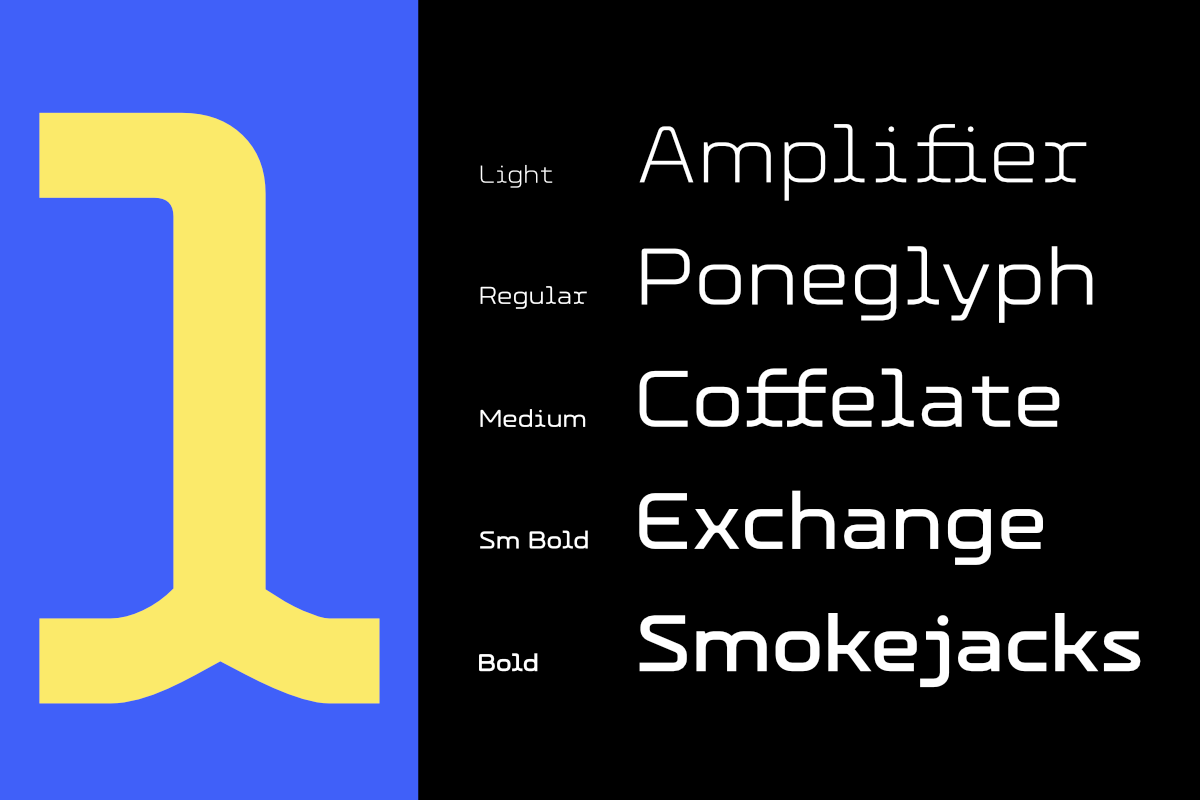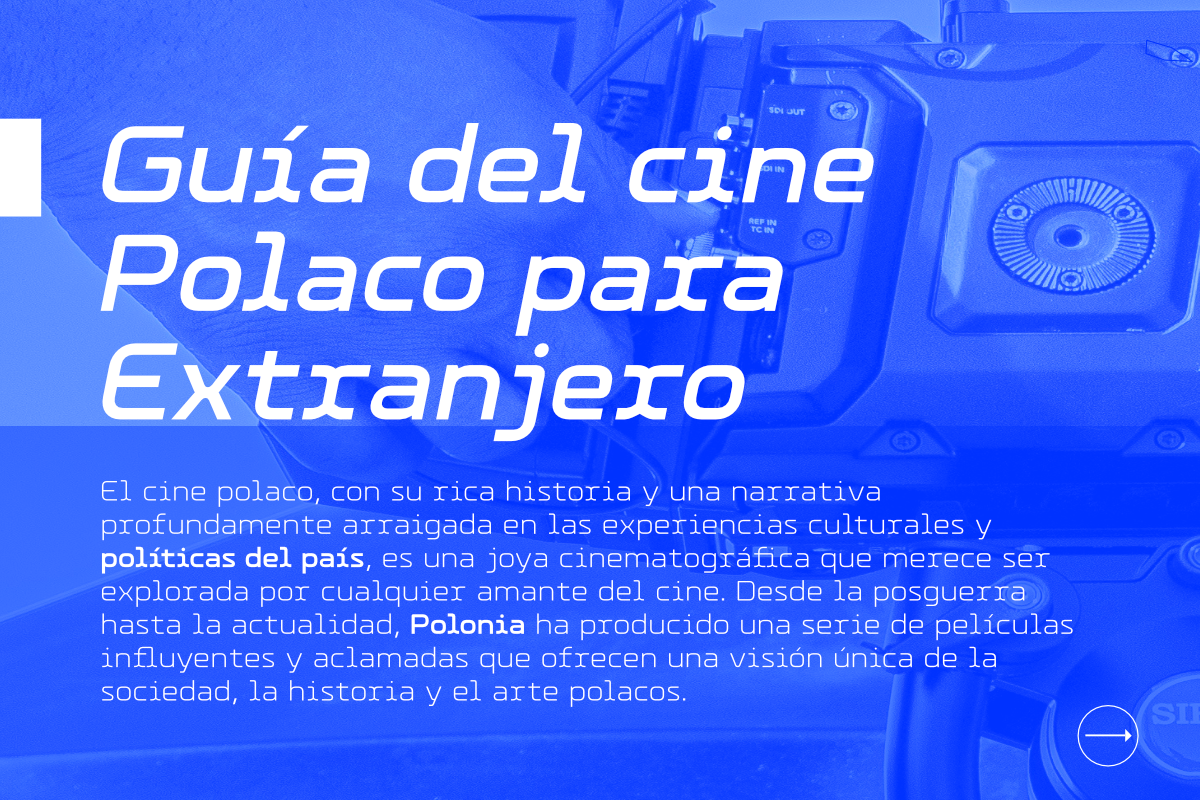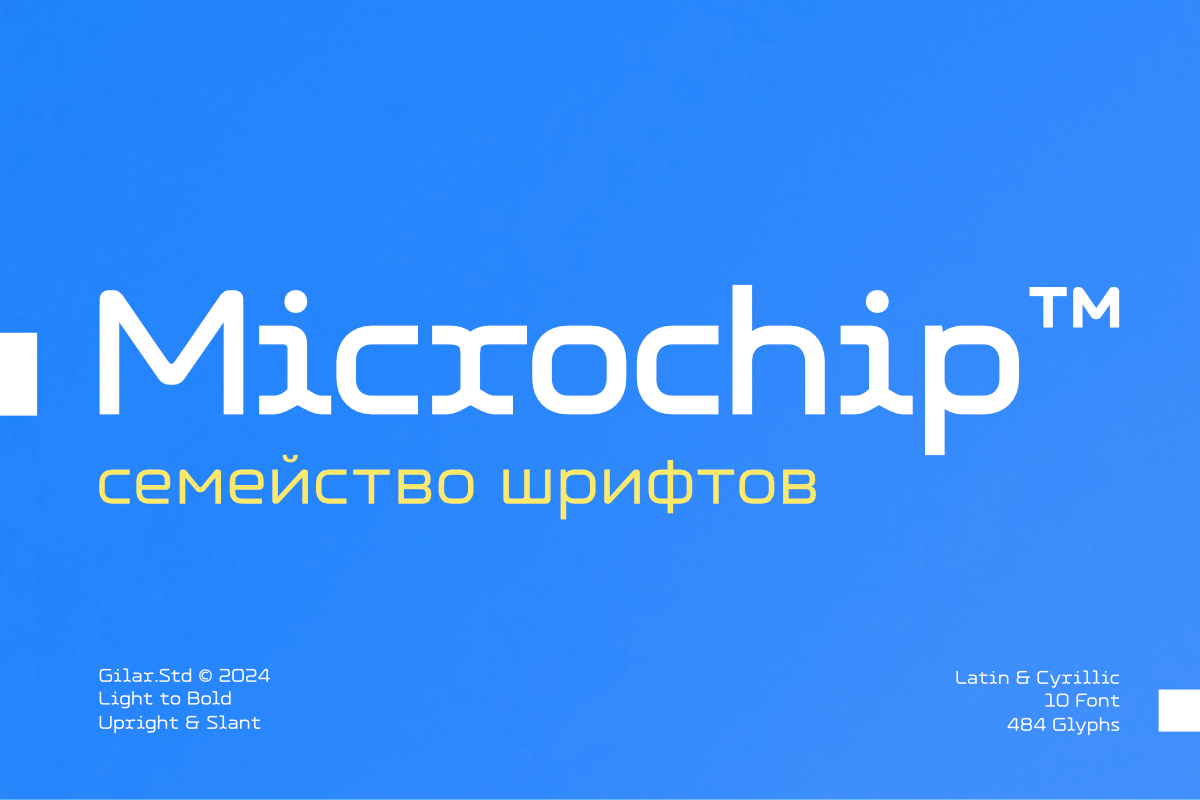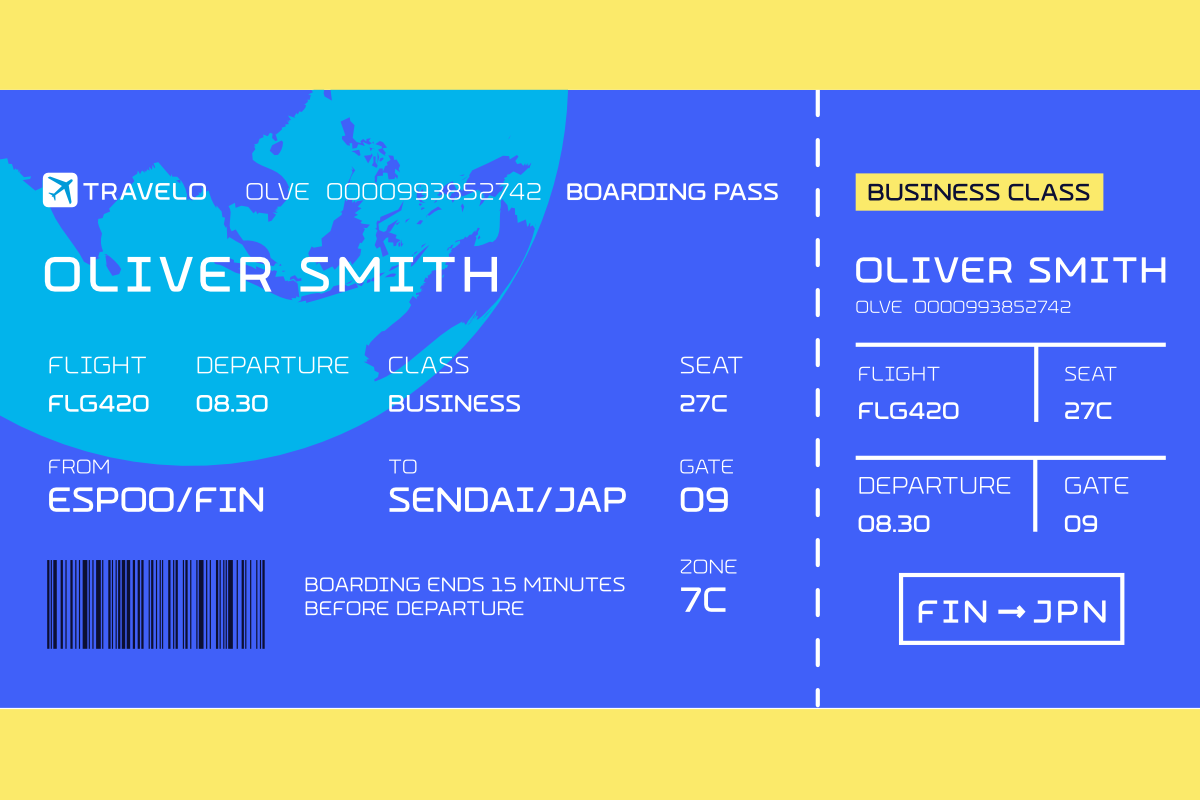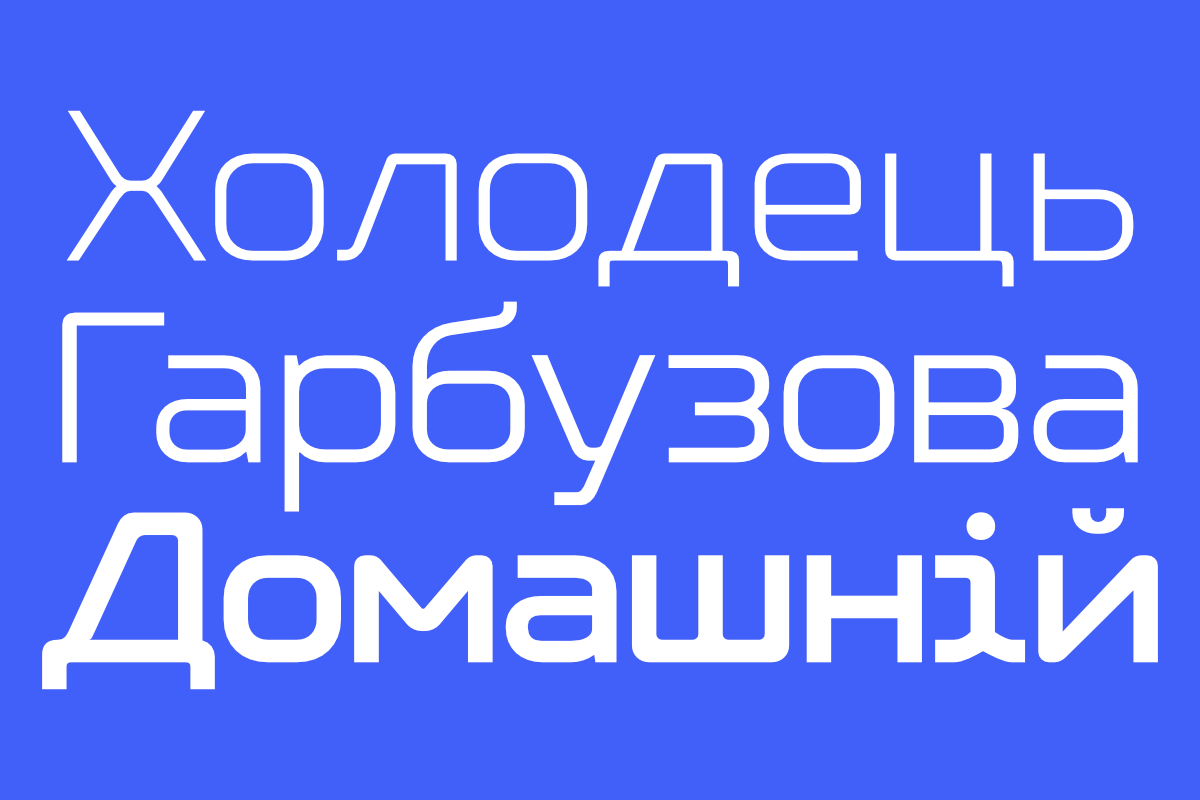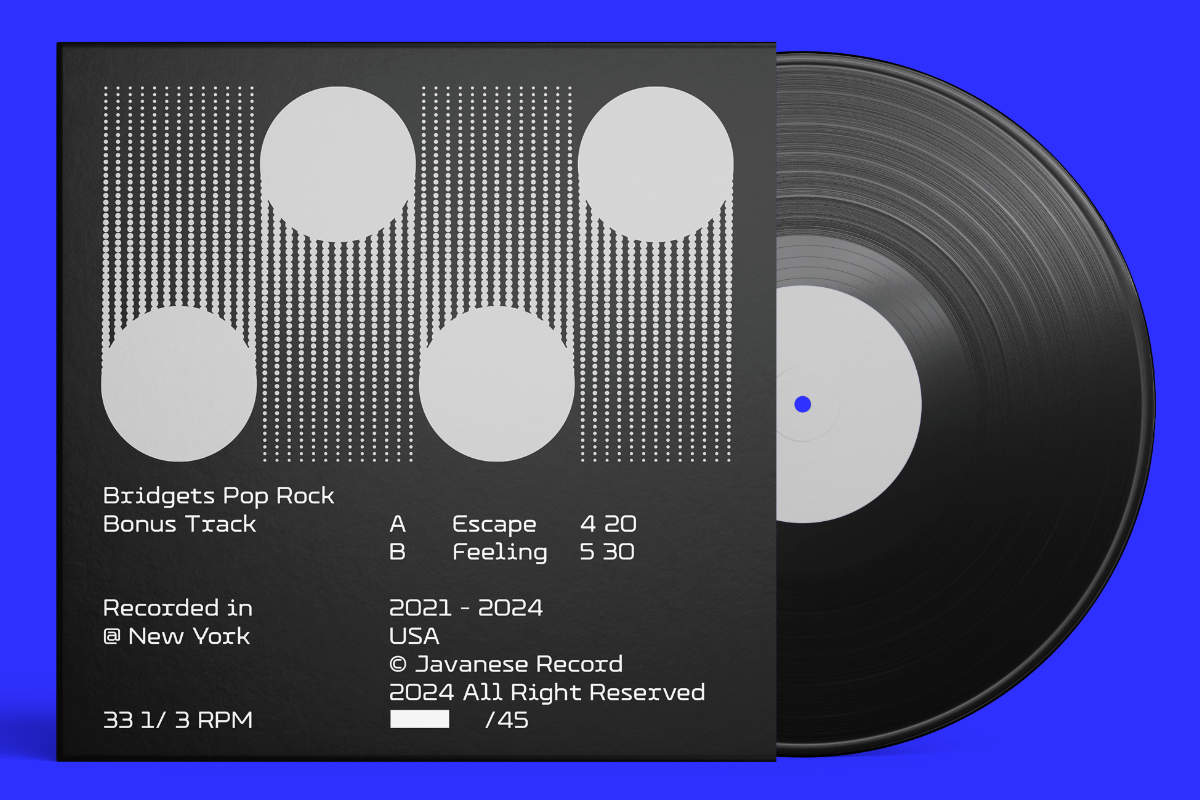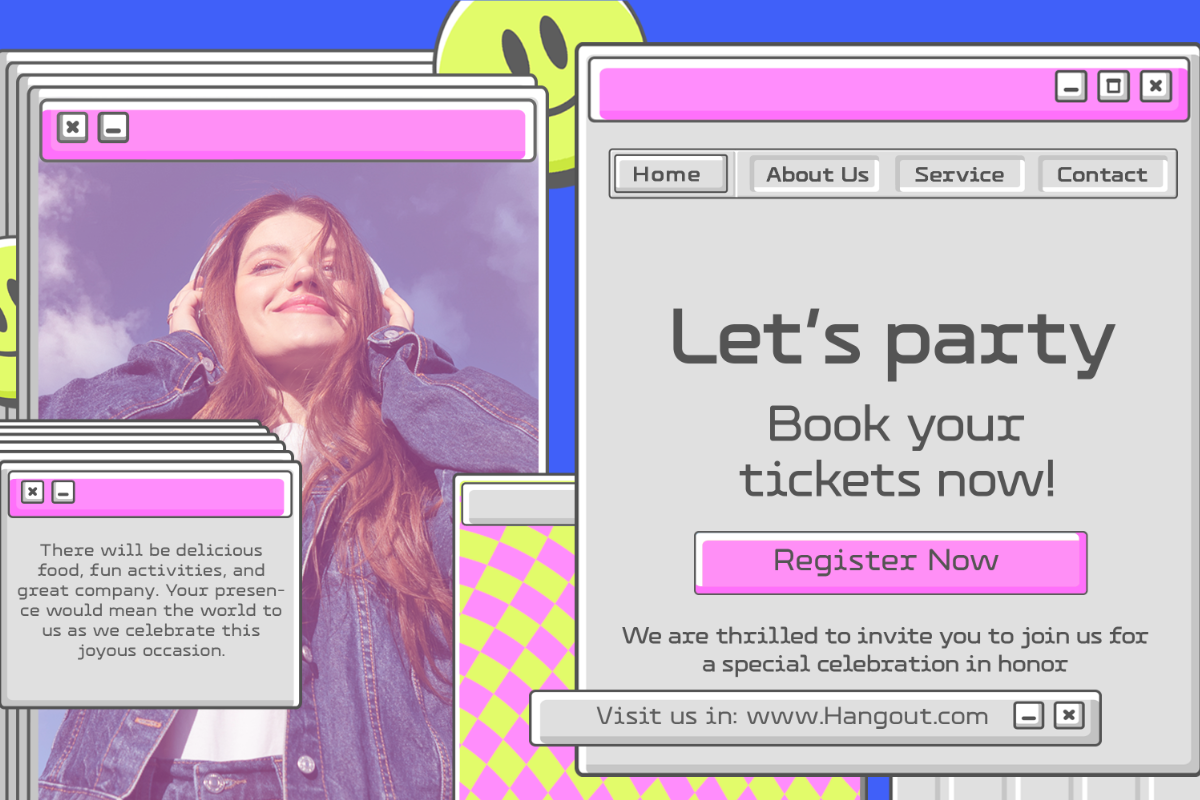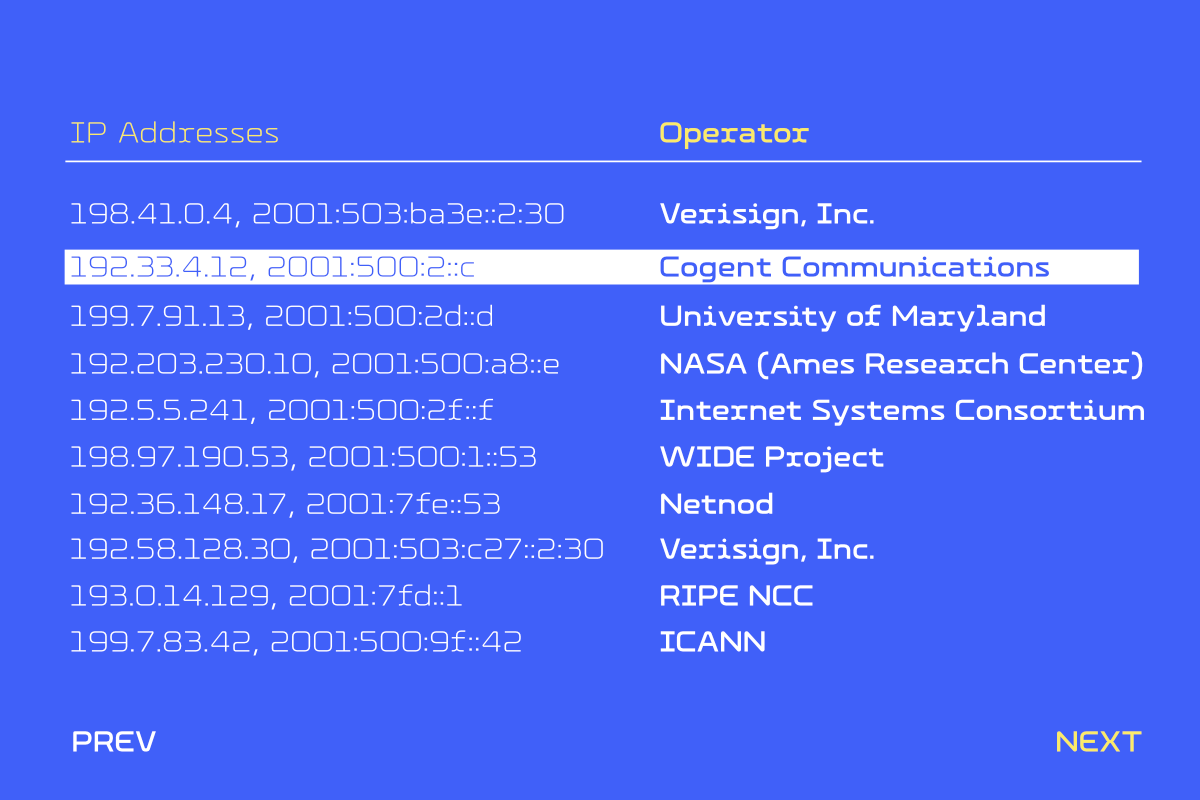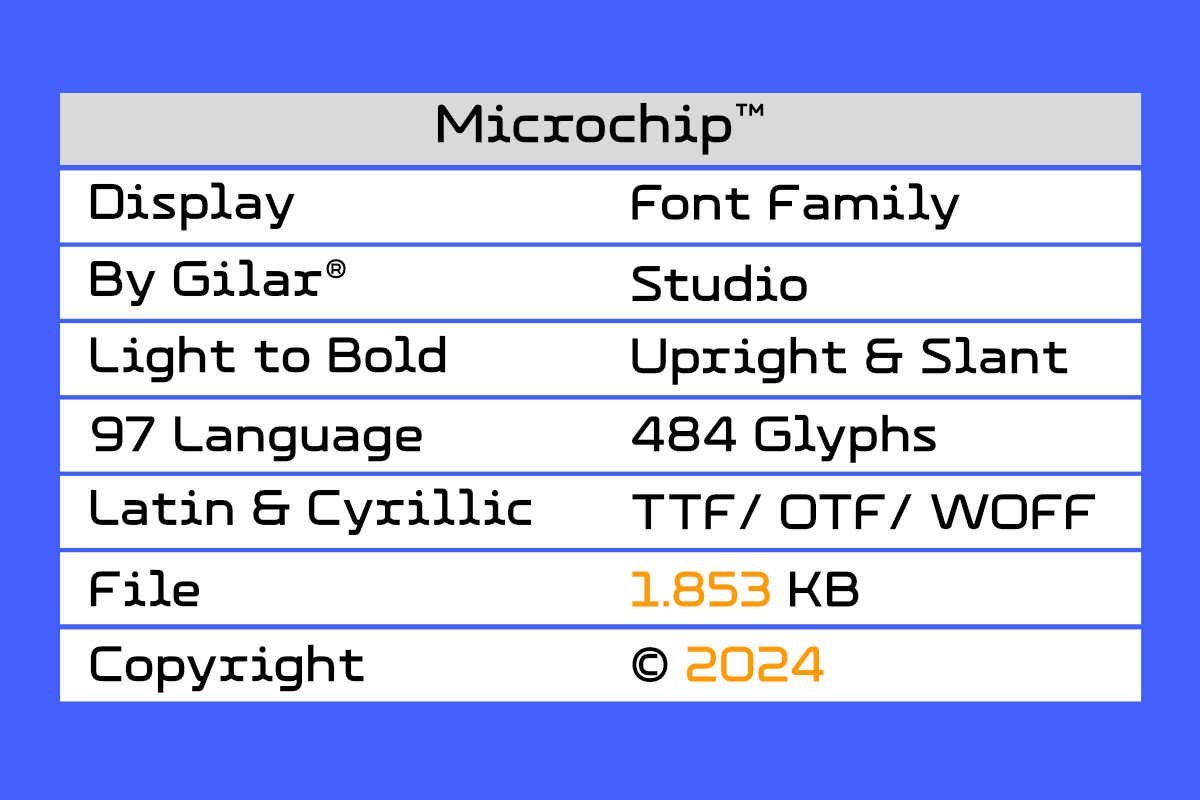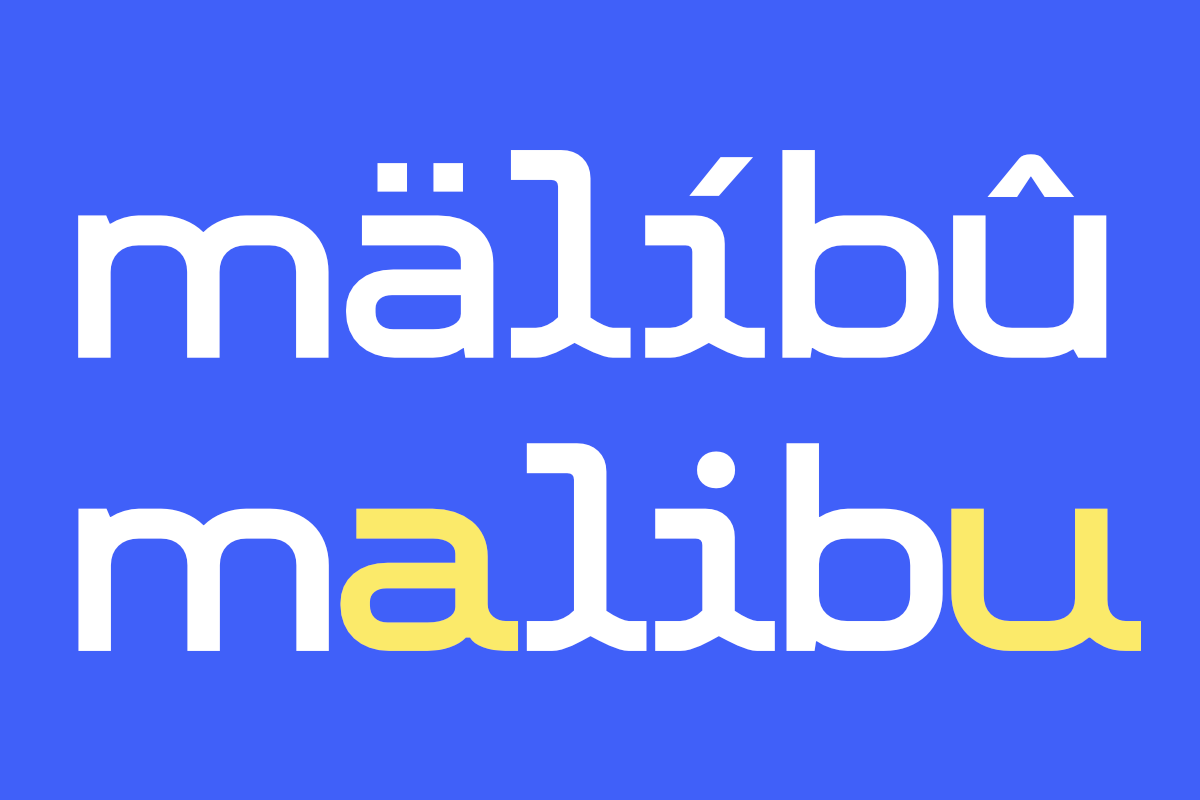
Microchip - Font Family
Microchip Font Family
Microchip is a monospaced font family with a futuristic theme, meticulously crafted to offer a sleek, modern aesthetic. The family consists of 10 distinct fonts, featuring 5 weights ranging from Light to Bold and 5 corresponding slants. This extensive range ensures versatility and precision for a wide array of design applications.
Supporting over 97 languages, including both Latin and Cyrillic scripts, Microchip is an ideal choice for global projects. This expansive linguistic support allows for seamless integration in multilingual environments, making it perfect for international use.
The unique design of certain characters, such as 'i', 'l', "r",and 'f', sets Microchip apart, giving it a distinctive and innovative look. These characters have been thoughtfully designed to provide a unique flair, enhancing the overall futuristic feel of the font.
With Microchip, you get a font family that is not only visually striking but also highly functional, designed to meet the demands of contemporary digital and print design. Whether for coding, user interfaces, or graphic design, Microchip delivers a polished, professional look with a futuristic edge.